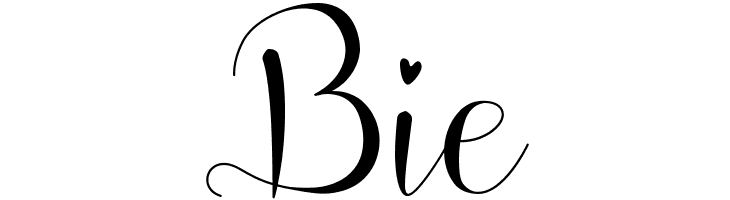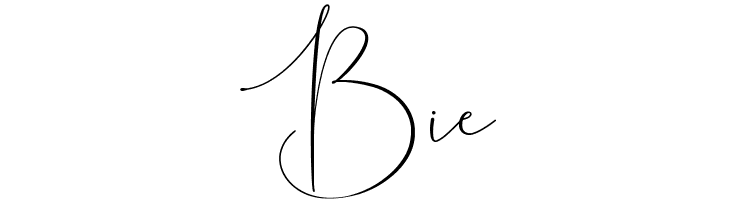
An elegant, flowing script font with interconnected, graceful strokes.
A graceful and elegant script font with flowing, cursive letterforms.
An elegant, flowing script font with graceful curves and ornate uppercase letters.
A graceful, handwritten script font with elegant, flowing letters.
An elegant, flowing script font with smooth, connected strokes and a graceful slant.
An elegant and flowing script font with graceful curves and delicate strokes.
A graceful and elegant script font with flowing, connected strokes.
A graceful script font with flowing, cursive letters and a sophisticated style.
A graceful and elegant script font with flowing cursive style.
A graceful script font with flowing, interconnected letters and elegant flourishes.